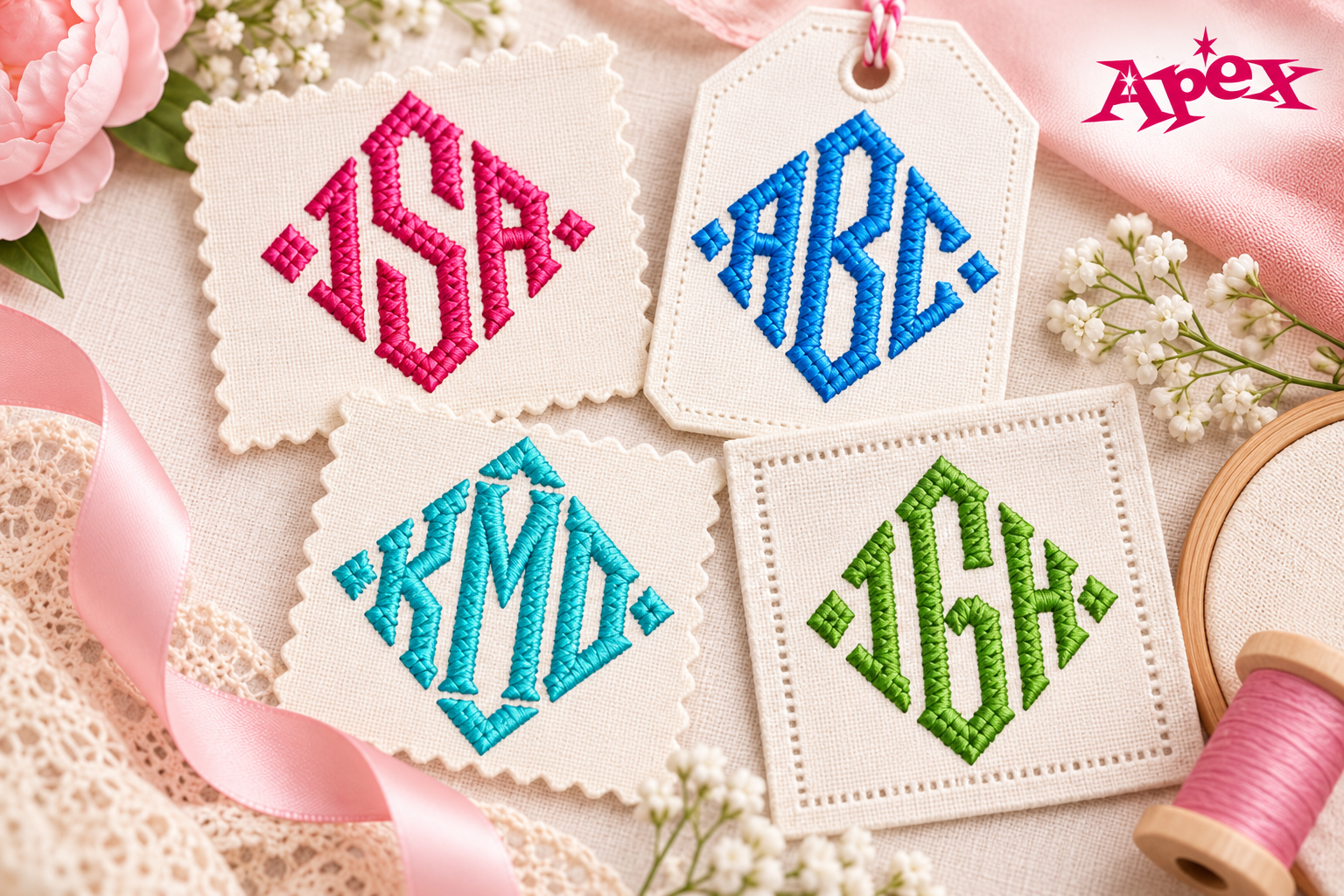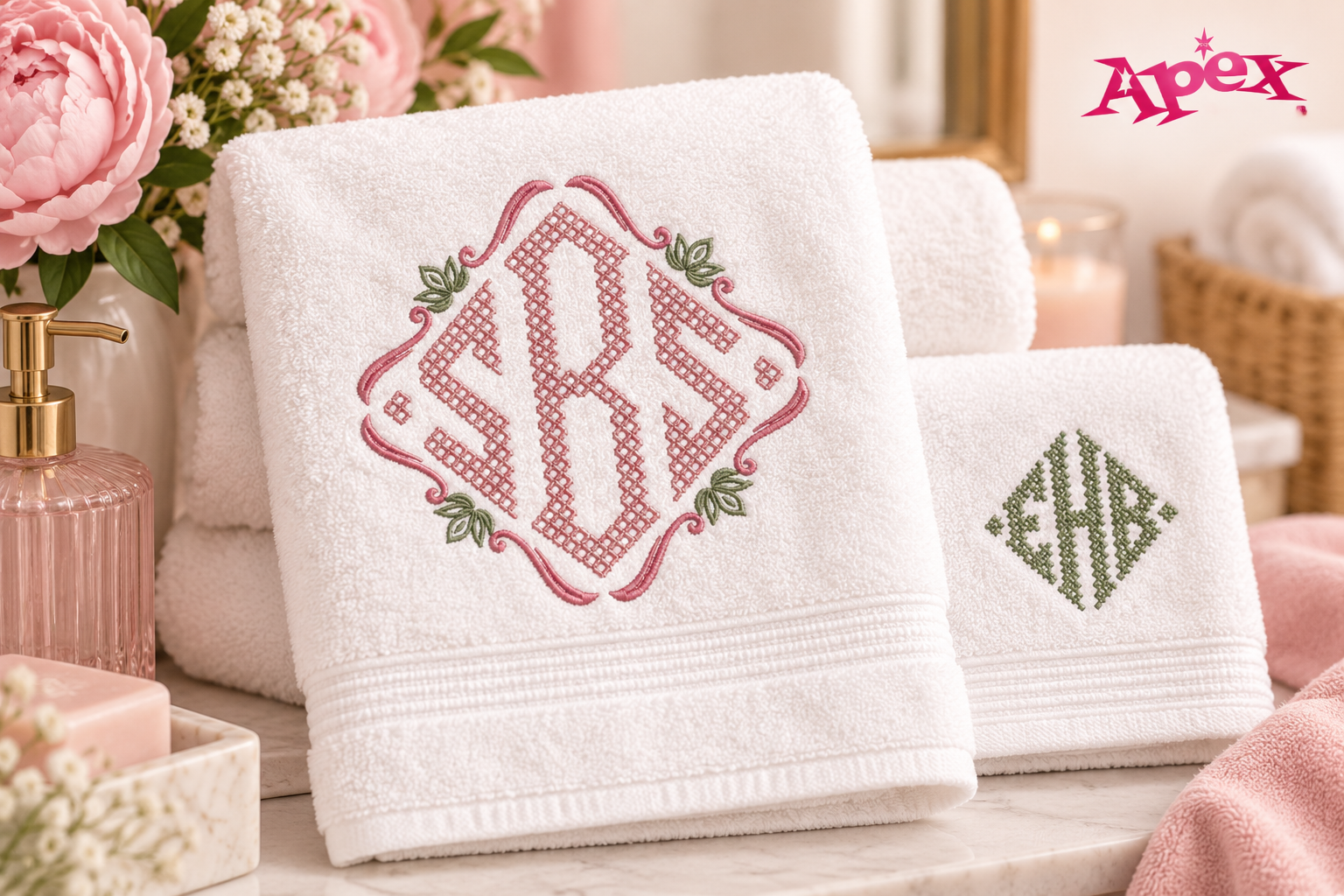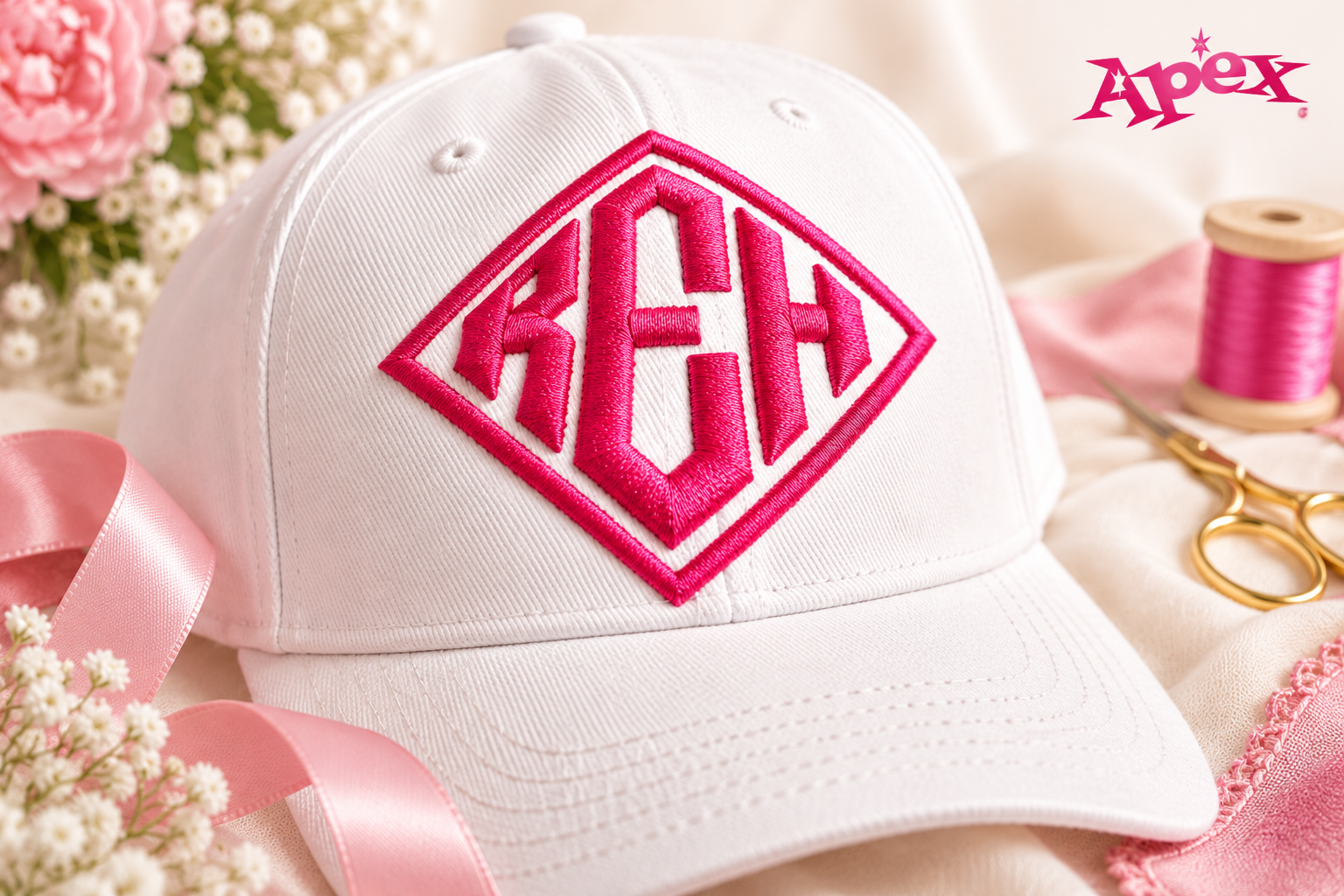
Diamond Embroidery Fonts: Classic Monograms for Personalized Projects
Diamond embroidery fonts bring a timeless, structured look to personalized embroidery. By arranging initials into a balanced diamond shape, this monogram style works beautifully on towels, linens, pillows, bags, apparel, wedding gifts, and home décor.
Unlike ordinary lettering fonts, a diamond embroidery font is digitized specifically for machine embroidery. Each letter is designed to work with the others, helping you create a clean two-letter or three-letter diamond monogram without having to build the shape from scratch.
At Apex Embroidery Designs, you can find several diamond monogram styles, from classic satin lettering to fishtail, appliqué, cross stitch, and 3D puff options.
Whether you prefer something traditional, decorative, or bold, there is a diamond embroidery font for almost every personalization project.
What Is a Diamond Embroidery Font?
A diamond embroidery font is a machine embroidery alphabet designed so two or three initials can be arranged into a diamond-shaped monogram. The letters are proportioned and digitized to fit together as one balanced design rather than appearing as separate pieces of text.
The structured shape gives even a simple set of initials a polished and decorative appearance.
How Does a Diamond Monogram Work?
A traditional three-letter diamond monogram usually uses three initials:
First name initial + Last name initial + Middle name initial
The last name initial is typically placed in the center and appears larger or more prominent than the two side letters.
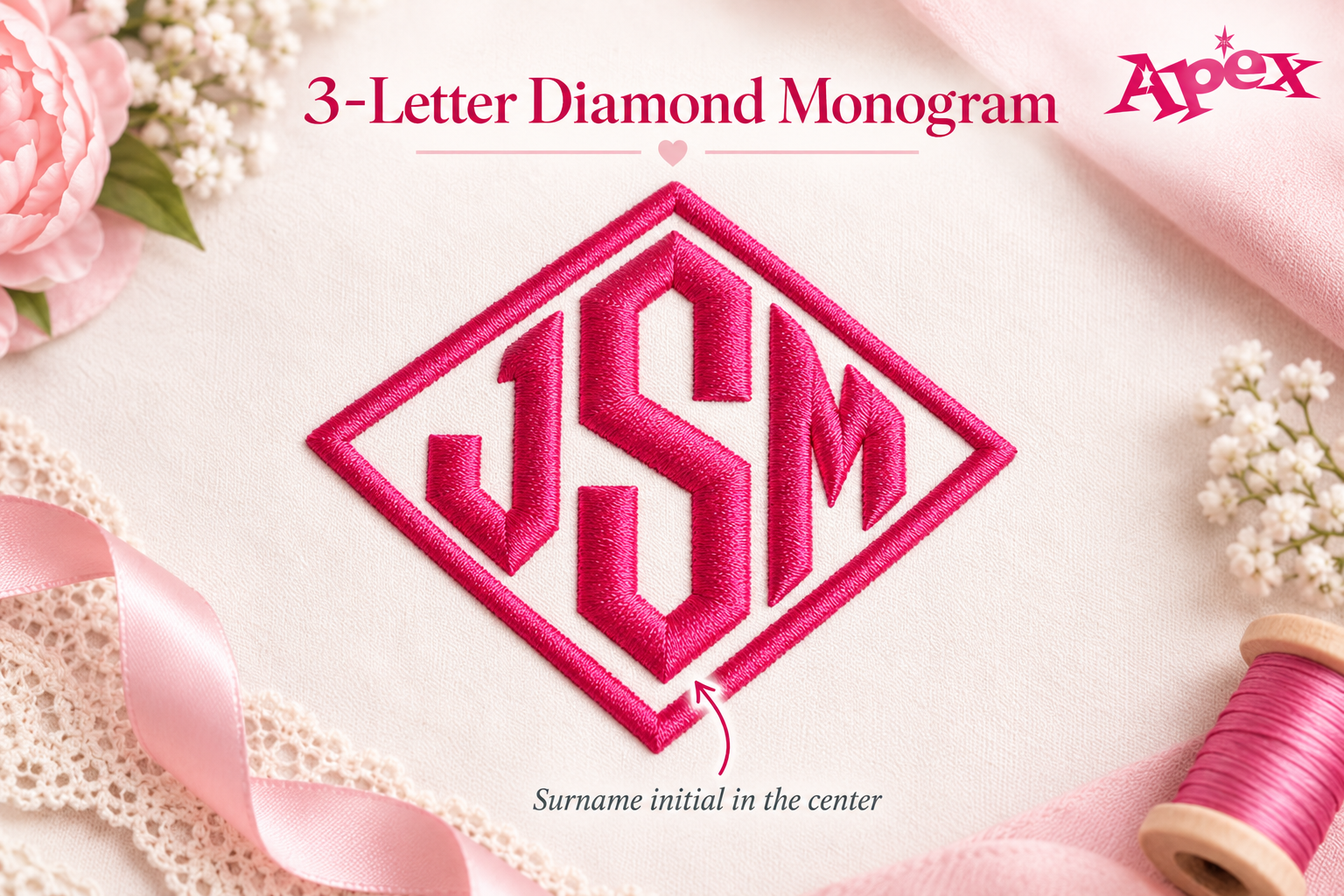
For example, someone named Jane Marie Smith could use:
J S M
with the S forming the larger center section of the diamond.
Some Apex diamond embroidery fonts include different letter sizes specifically so the smaller side initials can be combined with a larger center letter.
For example, with the Diamond Monogram Embroidery Font, you can combine the smaller side letters with the larger center letter to build a proportioned diamond monogram.
This makes it easy to create personalized designs without manually reshaping every letter.
Explore Diamond Embroidery Font Styles from Apex
Not every diamond monogram has to look the same.
Apex Embroidery Designs offers several interpretations of the traditional diamond shape, allowing you to choose a style that matches your project.
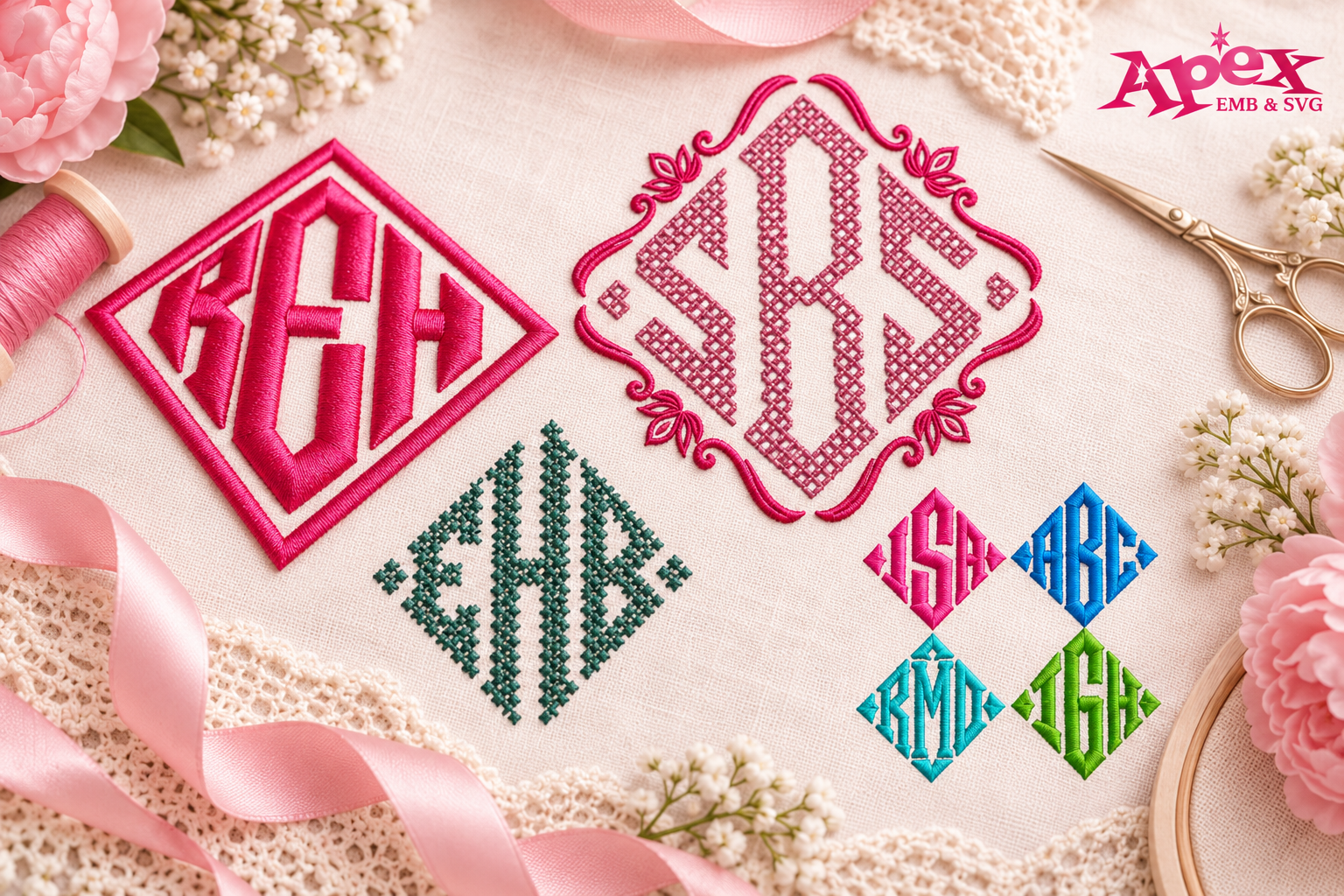
Classic Diamond Monogram Embroidery Font
If you want a traditional diamond monogram, start with the Diamond Monogram Embroidery Font.
This style creates the familiar geometric diamond shape using separate side and center letters.
The font comes in multiple sizes, making it easier to create both smaller monograms and larger statement designs.
If you are new to diamond monogram embroidery, this is one of the most versatile styles to start with.
Diamond Monogram Font with Frame
For a bolder geometric look, try the Diamond Monogram Font with Frame.
The frame gives the monogram a stronger visual boundary and can make the finished embroidery stand out more clearly on apparel and accessories.
A frame can also help separate the monogram from patterned fabrics or busy backgrounds.
Diamond Fishtail Embroidery Font
The Diamond Fishtail Embroidery Font combines the traditional diamond layout with elegant fishtail letterforms.
The result feels slightly more decorative and vintage than a standard block monogram.
If your project has a classic, preppy, Southern, or vintage-inspired style, a fishtail diamond monogram can be a great choice.
Diamond Triangle Fishtail Embroidery Font
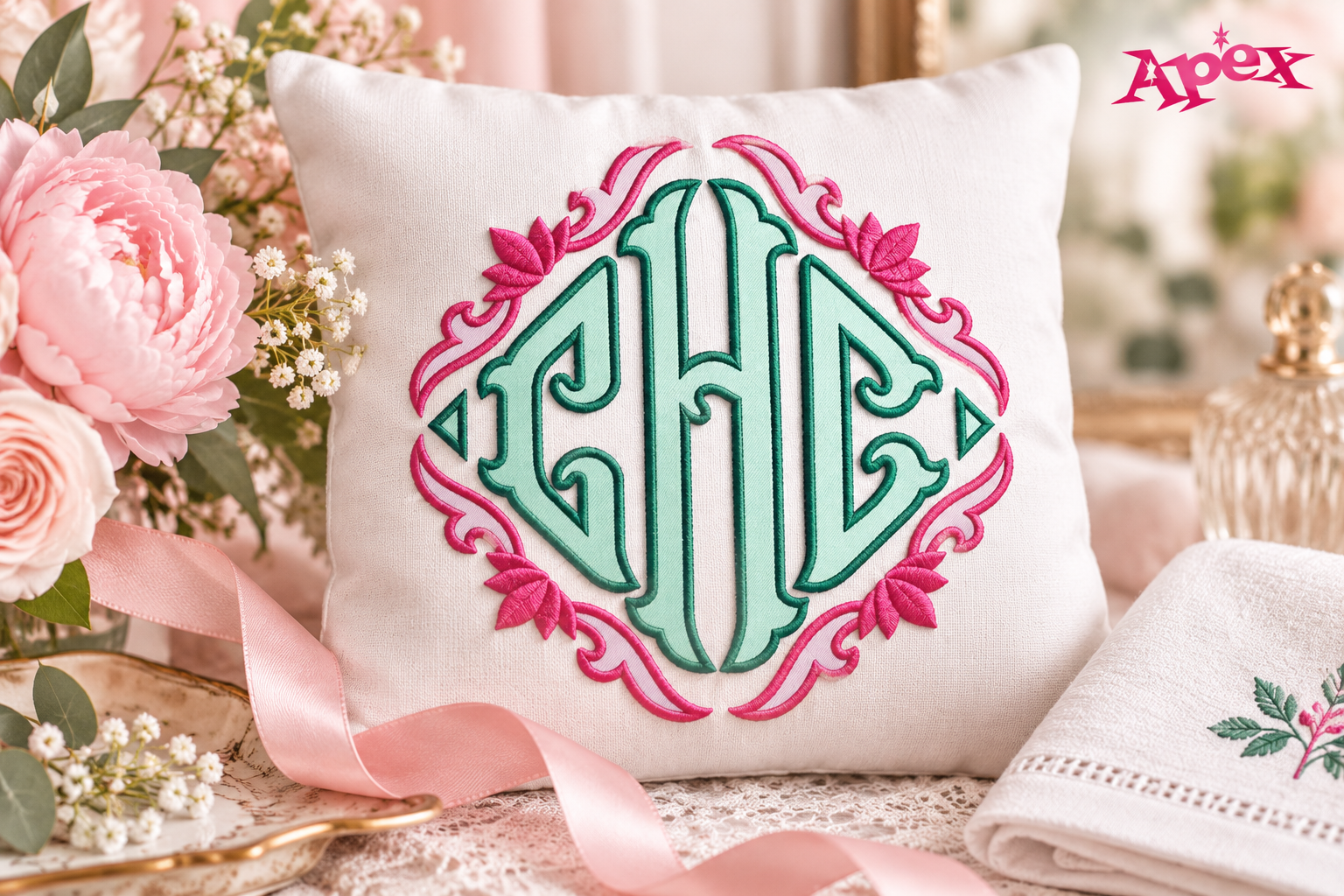
For even more detail, the Diamond Triangle Fishtail Embroidery Fonts offer several stitch treatments.
Depending on the set, you can create the design using styles such as:
This makes the font particularly useful when you want one diamond monogram style that can work across different types of projects.
Use satin stitching for a polished traditional look, or choose appliqué when you want to introduce contrasting fabric into a larger design.